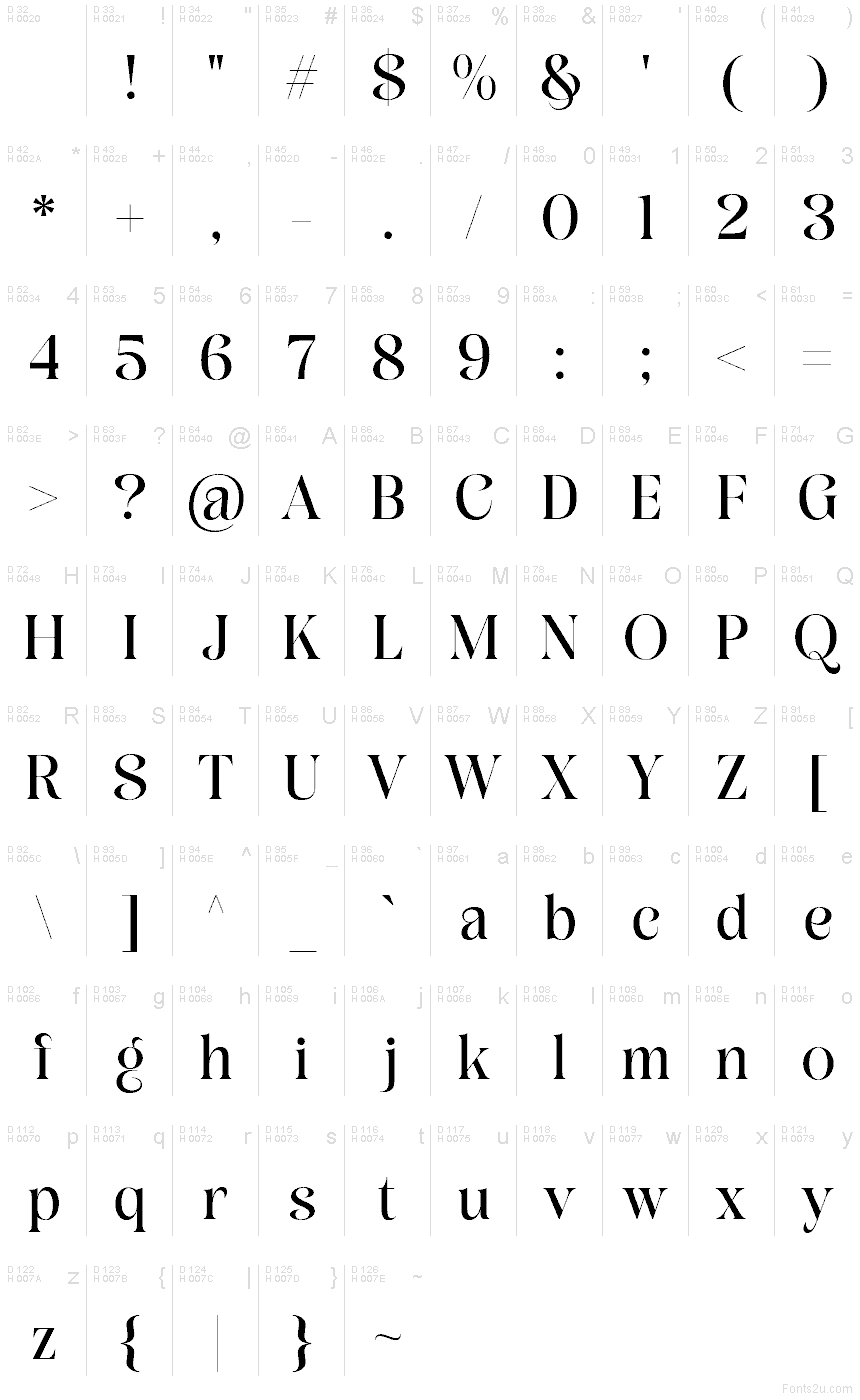
SwinglyLours
Swingly Lours font by Jolicia Type Foundry is a captivating elegant serif font. With its dramatic flair and high contrast, it combines classic sophistication with contemporary creativity. This graceful and timeless typeface includes exquisite ligatures and numerous alternates to elevate your designs.
Swingly Lours
Swingly Lours by Jolicia Type